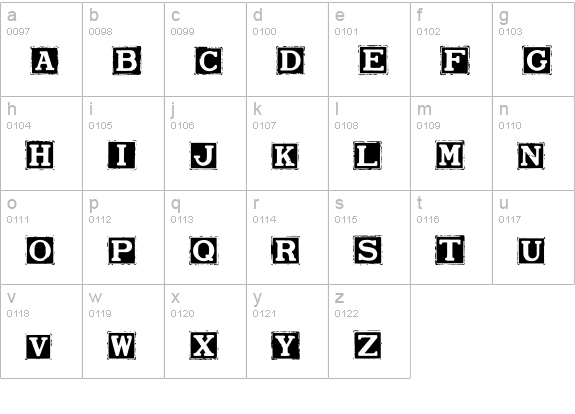
Smargana Dealing Font Details
Introducing Smargana Dealing, a captivating and versatile font that will add a touch of elegance and sophistication to your designs. Whether you are creating a logo, designing a website, or working on a branding project, Smargana Dealing is the perfect choice to make a lasting impression. This font combines the perfect balance of modernity and classic charm, making it suitable for a wide range of applications. Its clean lines and carefully crafted letterforms will ensure legibility and readability, while still maintaining a unique and distinctive look. With its smooth curves and graceful strokes, Smargana Dealing exudes a sense of refinement and professionalism. One of the best things about Smargana Dealing is that it is available for free download at FontsMarket.com. This means that you can enjoy the beauty and versatility of this font without any cost. Whether you are a professional designer or a hobbyist, the accessibility of Smargana Dealing allows you to enhance your projects with a high-quality font, without breaking the bank. The extensive character set of Smargana Dealing includes uppercase letters, lowercase letters, numbers, punctuation marks, and special characters. This ensures that you have all the tools you need to create stunning and visually appealing designs. Additionally, the font is available in multiple formats, making it compatible with various design software and platforms. With Smargana Dealing, you can effortlessly elevate your designs to the next level. Its timeless beauty and versatility will ensure that your creations stand out from the crowd. So why wait? Head over to FontsMarket.com and download Smargana Dealing for free today. Unleash your creativity and let this font bring your designs to life.